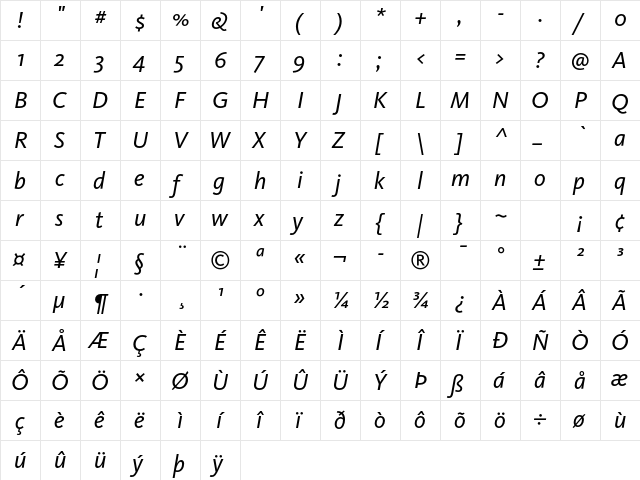
KievitOT-BookItalic Regular
| Foundry | FSI Fonts und Software GmbH |
| Designer | Mike Abbink |
Design Context for KievitOT-BookItalic Typeface
KievitOT-BookItalic is a composed and adaptable typeface that performs quietly and consistently across a wide range of design contexts. Its italic angle brings a sense of urgency and motion to the letterforms.
Pro Tip: Try KievitOT-BookItalic for annotation and caption copy alongside an upright companion — the contrast in angle creates a dynamic but ordered typographic system.